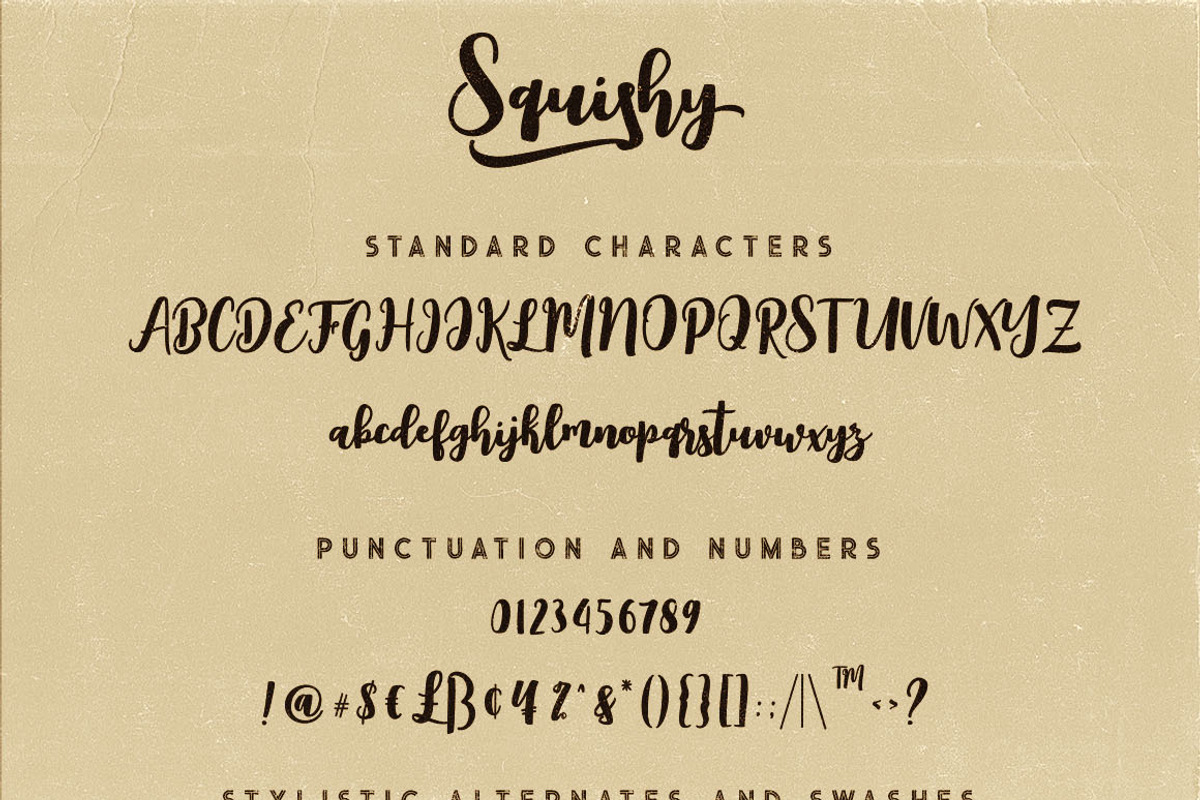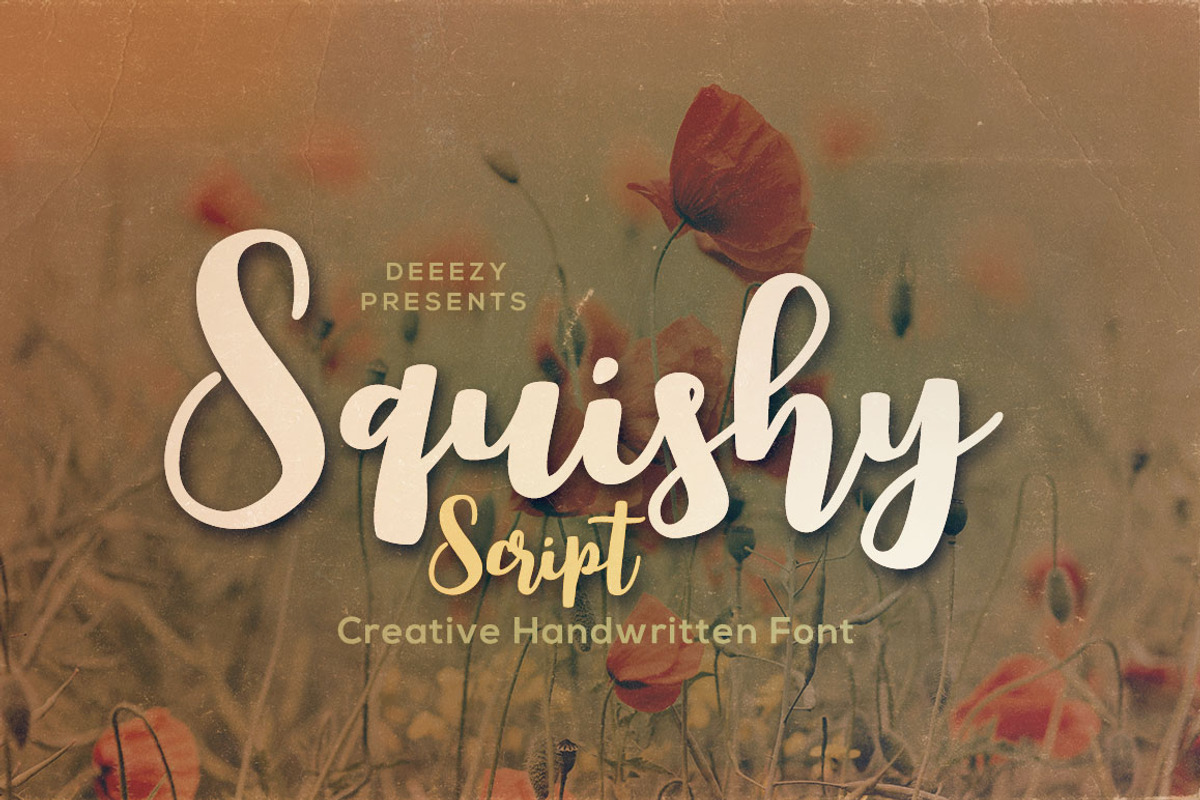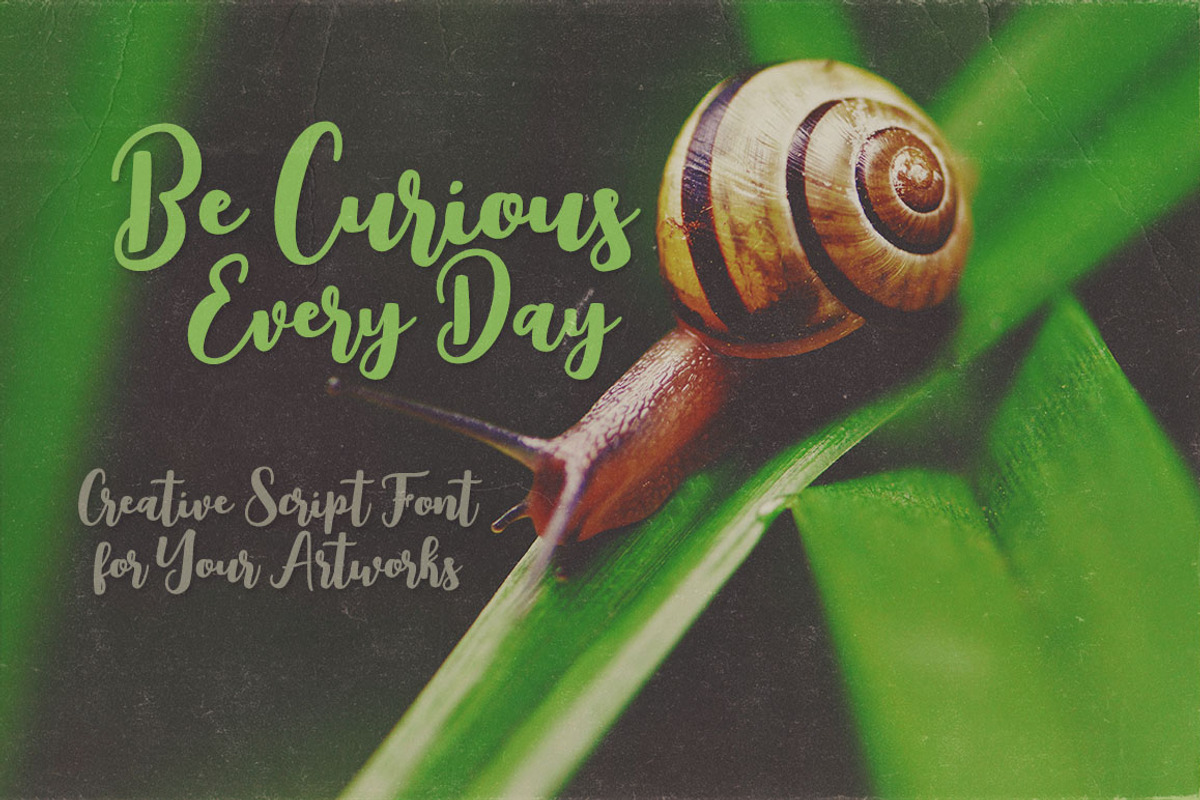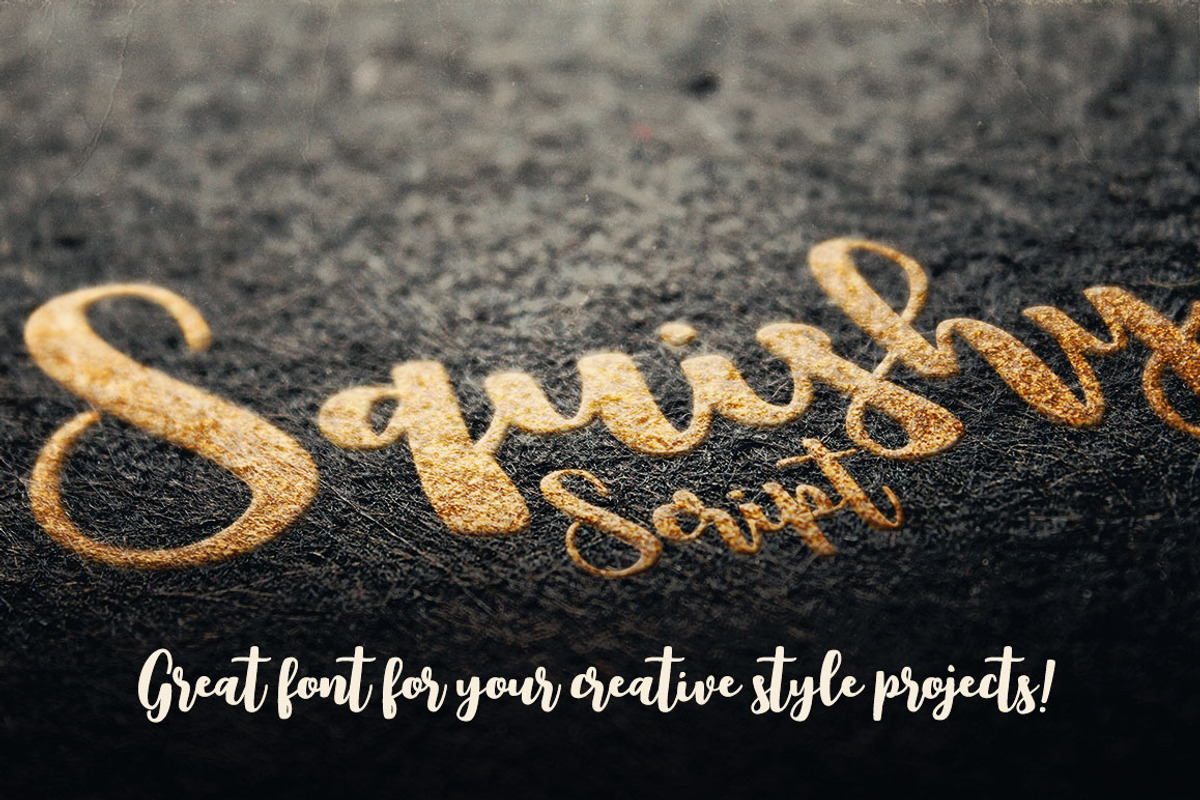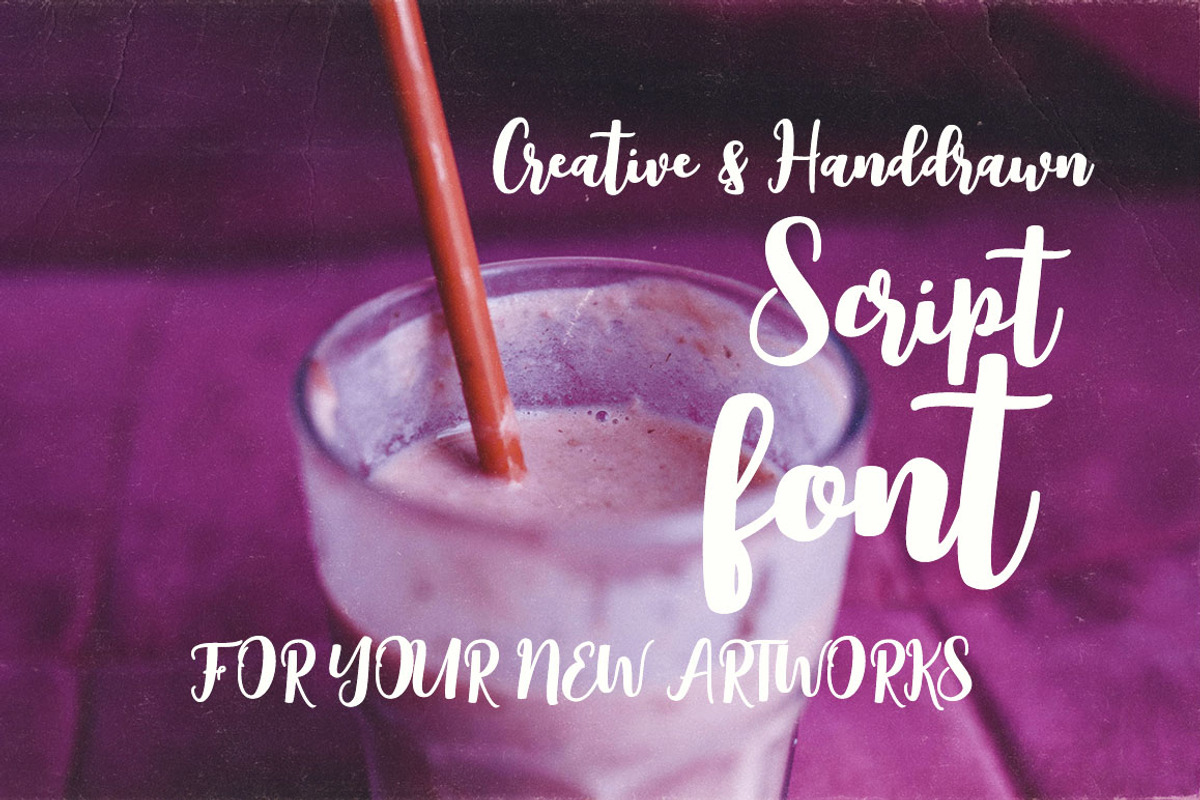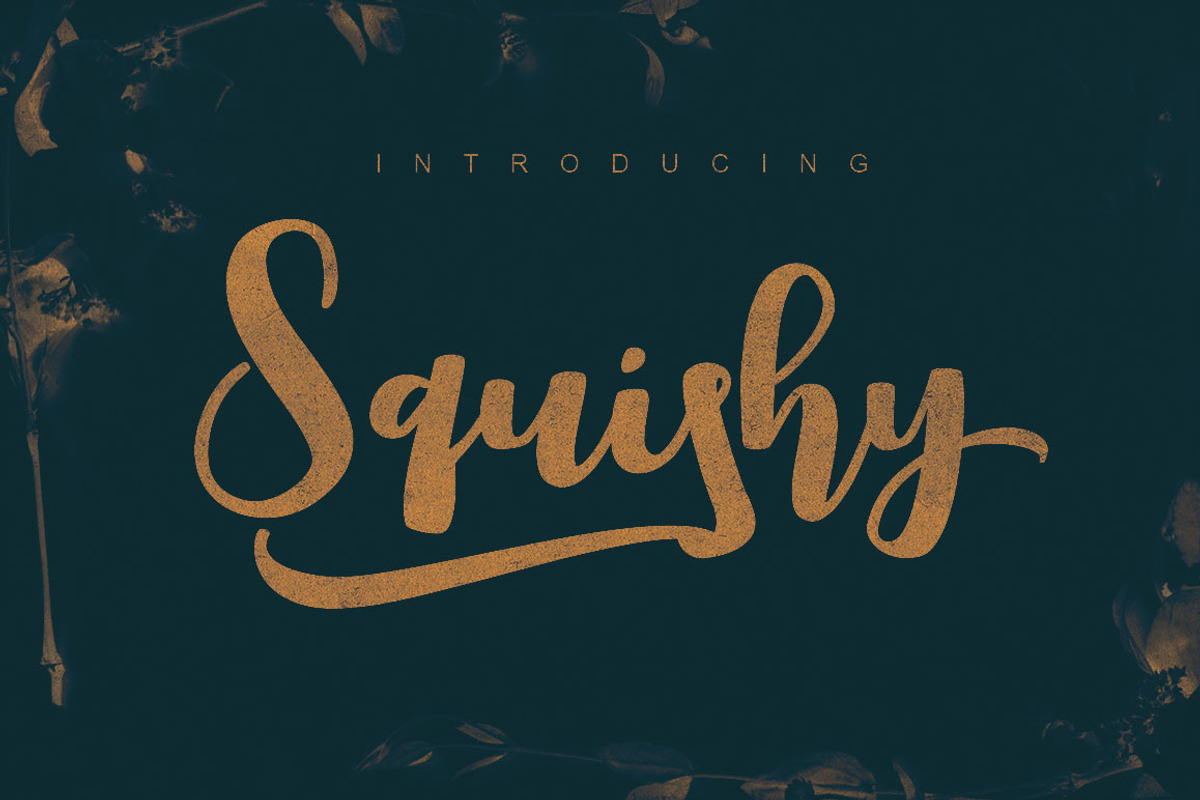
Squishy Script Font
Bold and handwritten or brush style script font for your new projects. With multi language support and lot of stylistic alternates & swashes. Enjoy ;)
- With multi language support and lot of stylistic alternates & swashes.
Why Squishy Script Font is worth a look
Squishy Script Font by Deeezy fits naturally into Branding, posters, packaging, typography.